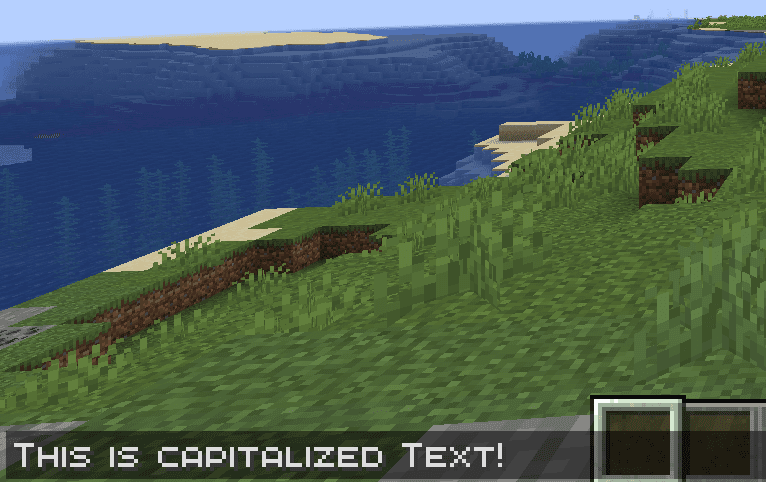
qrafty's CAPITALIZED FONTMinecraft resource pack for 26.2
This pack replaces lowercase letters with a smaller version of the capitalized letters, as seen on some servers. π«